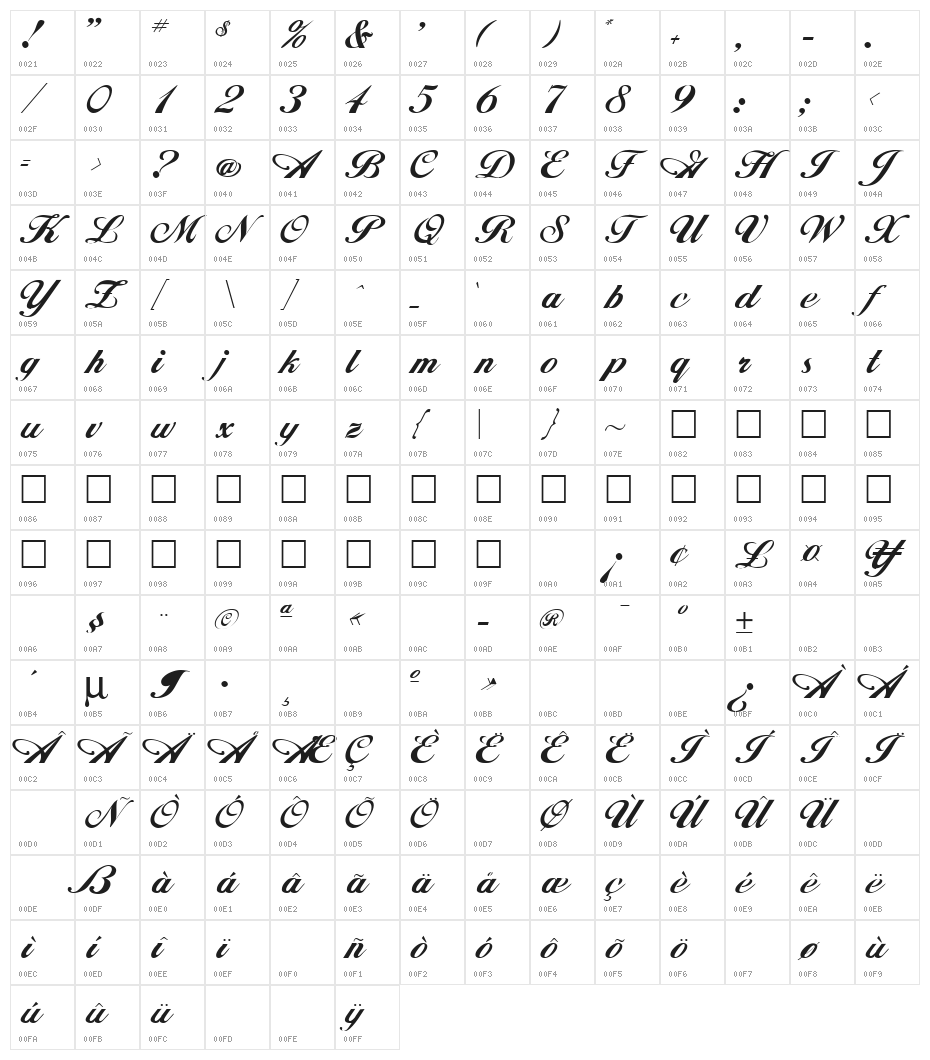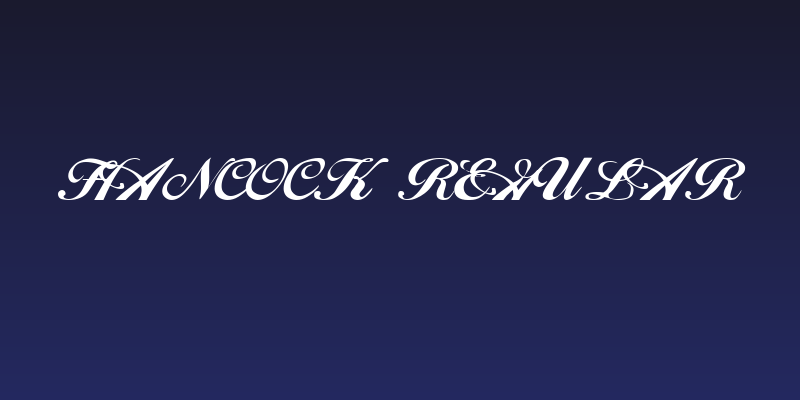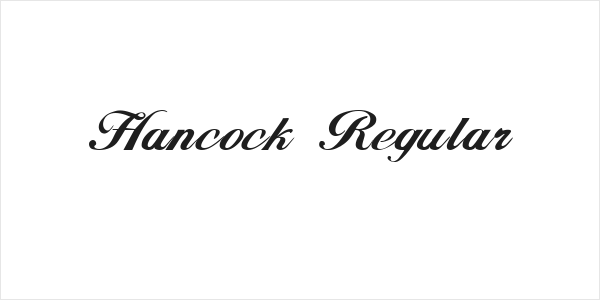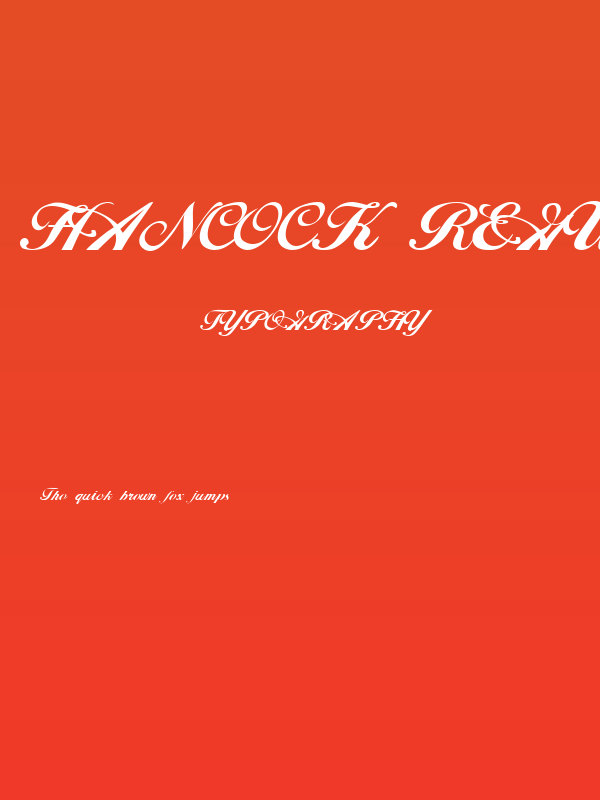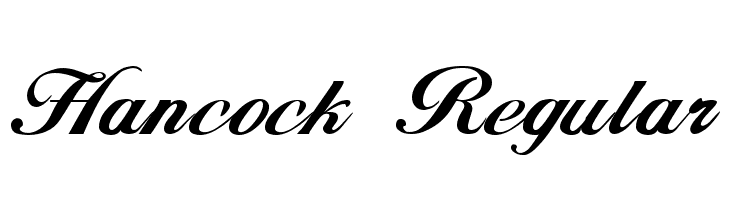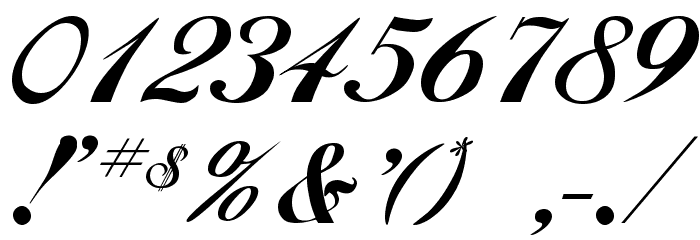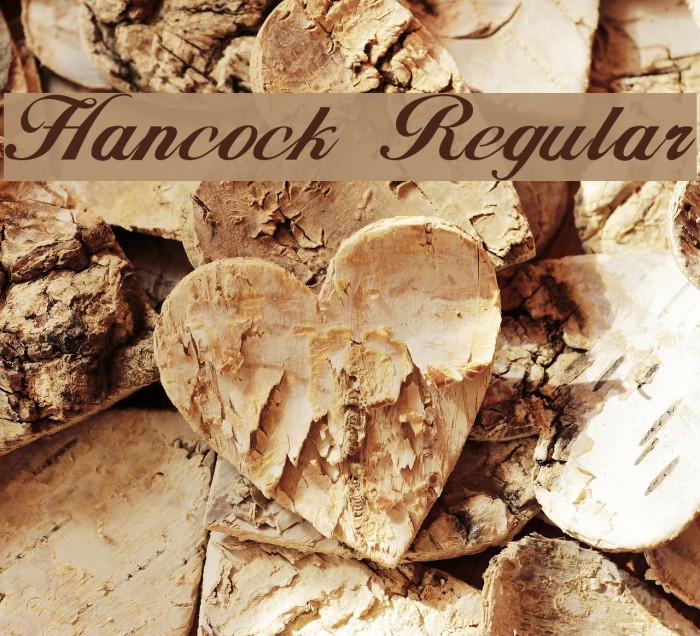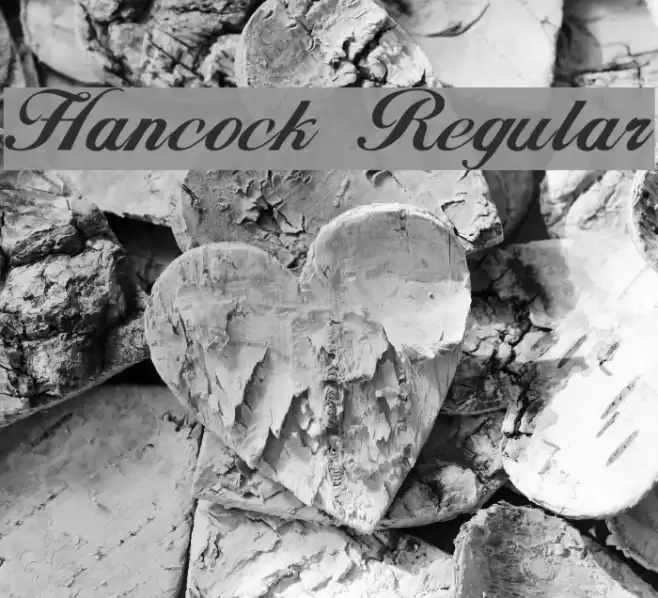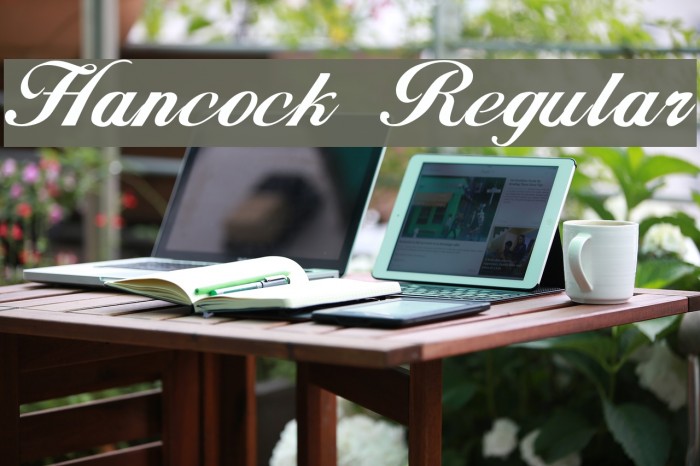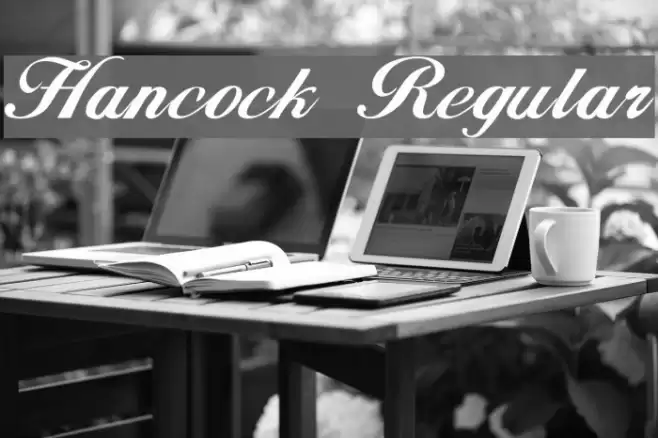
Hancock Regular Font
Hancock Regular Description
This elegant script font features flowing, cursive letterforms with a classic and sophisticated appearance. The uppercase letters are ornate with intricate loops and flourishes, while the lowercase letters maintain a smooth, connected style that enhances readability. The numerals are designed with a similar flair, adding a touch of elegance to any numerical display. Special characters are crafted with attention to detail, ensuring consistency across the entire typeface. This font exudes a sense of formality and grace, making it ideal for projects that require a touch of refinement.
| Overall Style | Classic |
| Use Case | Logos, Invitations, Headlines |
| Proposed Projects | Ideal for wedding invitations, formal event programs, luxury branding, and elegant stationery. |